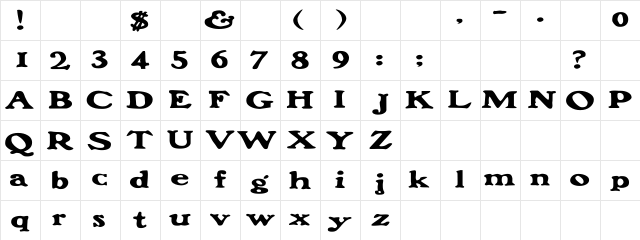
FrankFont Extended Regular
Design Context for FrankFont Extended
FrankFont Extended is a composed and adaptable typeface that performs quietly and consistently across a wide range of design contexts.
Pro Tip: Use FrankFont Extended in both headline and body roles to test its range before committing to a single application.